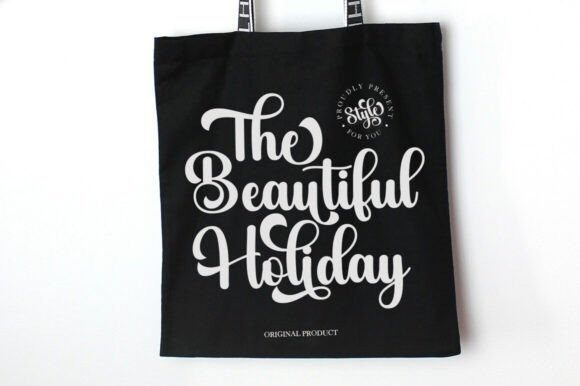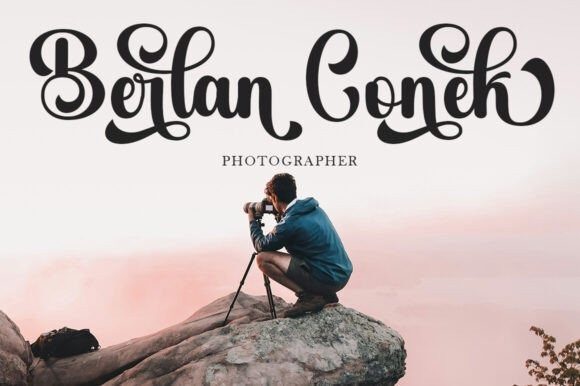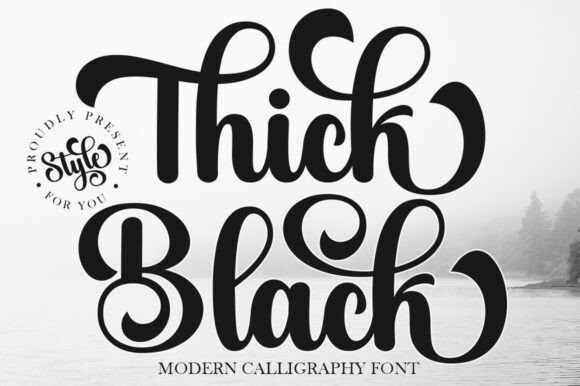
Thick Black Script Font
Thick Black Script Font is a font that exudes softness and elegance. With graceful strokes and a feminine touch, this font will elevate any design project to the highest level, be it branding, titles, wedding designs, invitations, signs, logos, labels, and more!